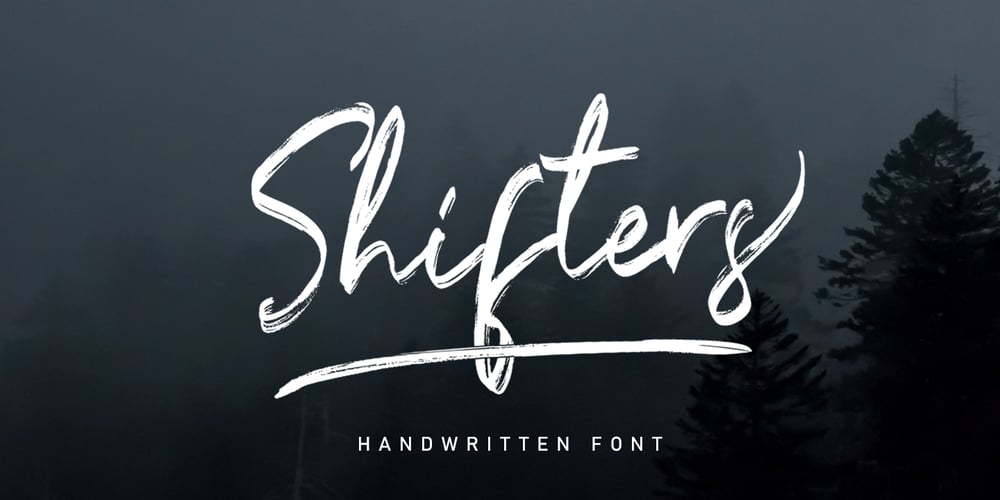
Shifters Font Family was designed by Asep Rendi and published by Arendxstudio. Shifters contains 2 styles and family package options. Shifters Handwritten Script is a font with distinctive handwritten characters and is perfect for branding projects, logos, wedding designs, media posts, advertisements, product packaging, product designs, labels, photography, watermarks, invitations, stationery, and any project that needs a handwritten touch. Features Character Set A-Z , Numerals & Punctuations (OpenType Standard), Accents (Multi-lingual characters), Ligatures. There it is! I really hope you enjoy it. Comments and likes are always welcome and accepted. More importantly, don’t hesitate to send a message if you have a problem or question. Now just read this, go there and make it happen.